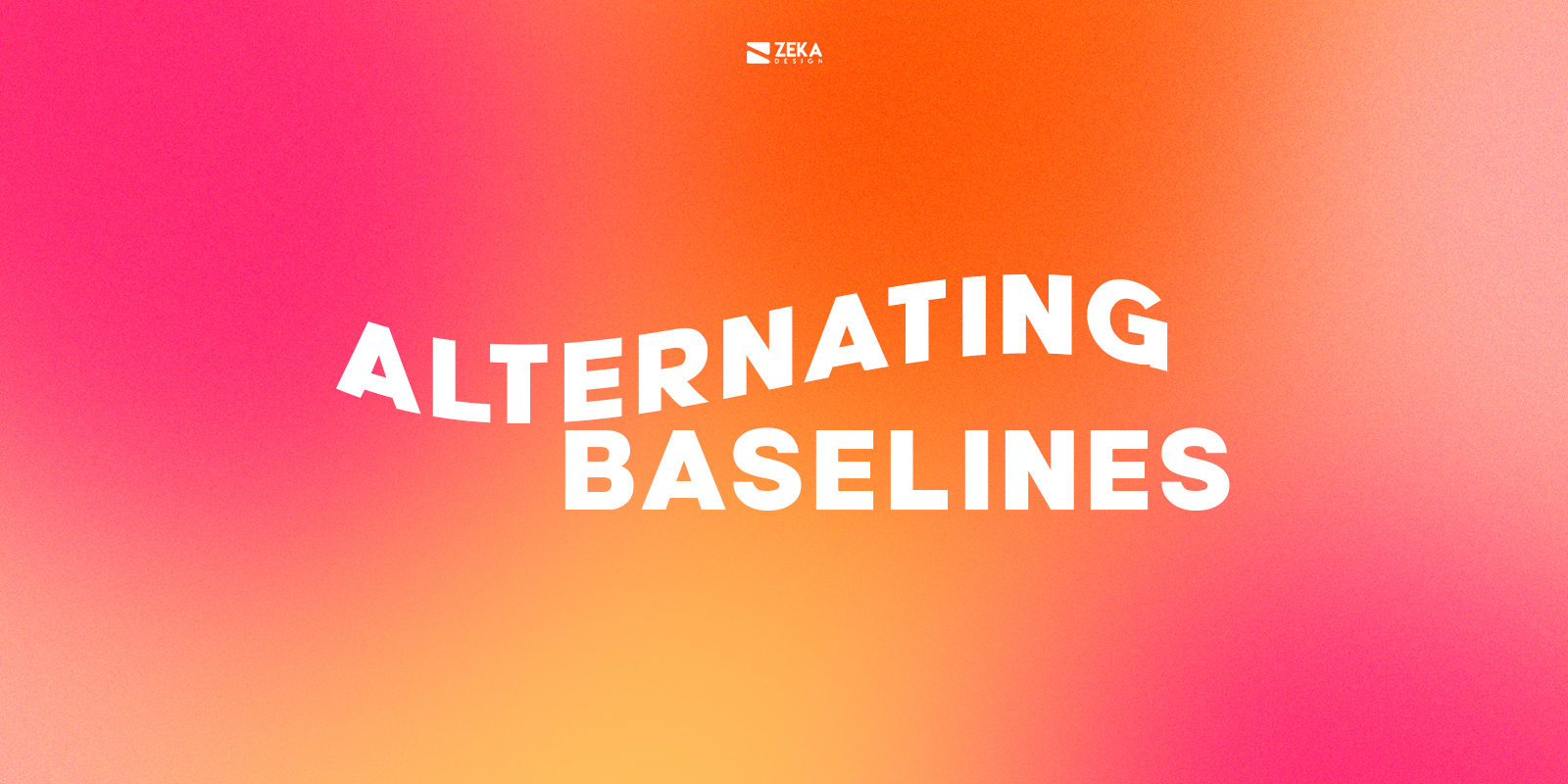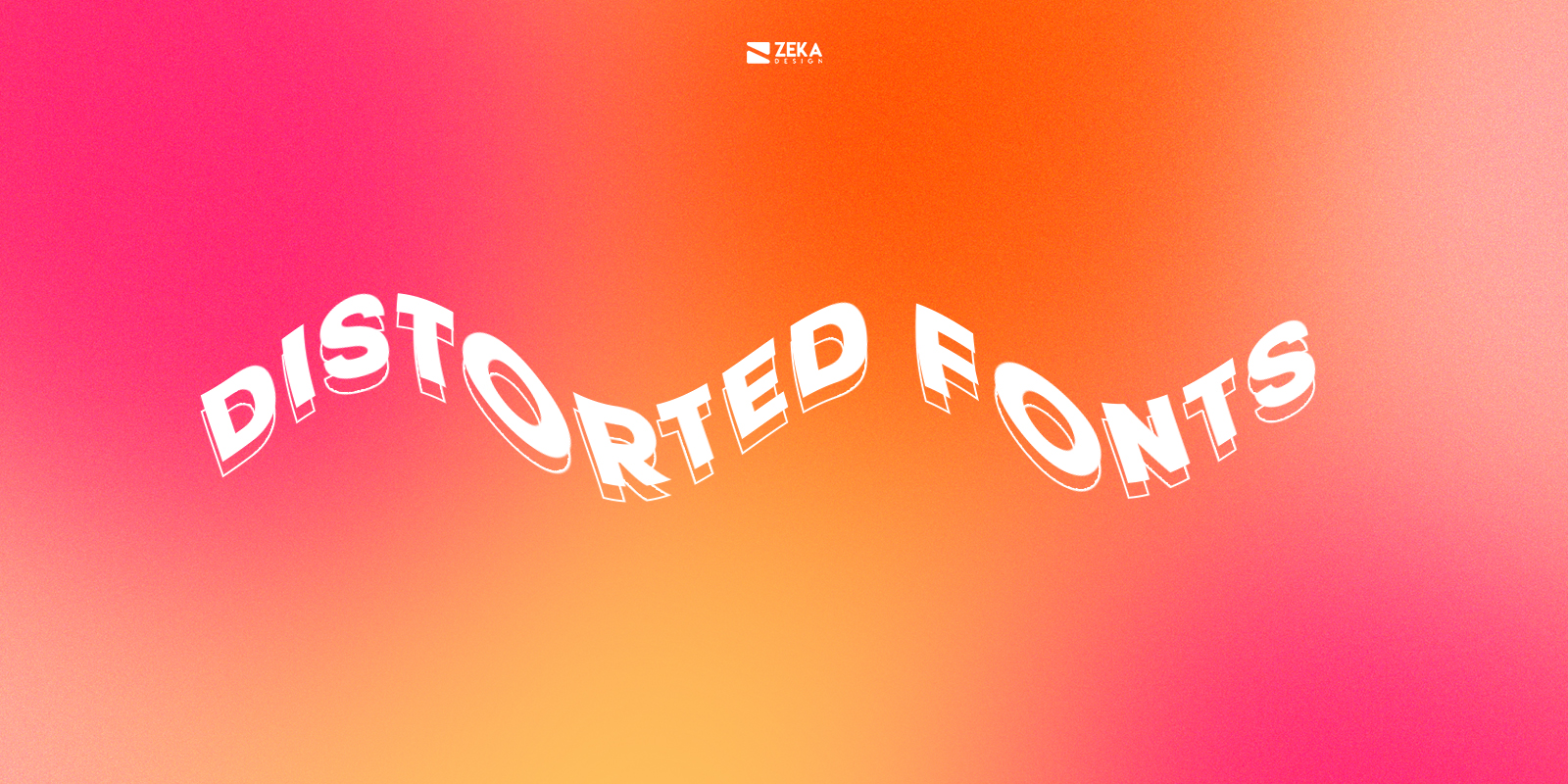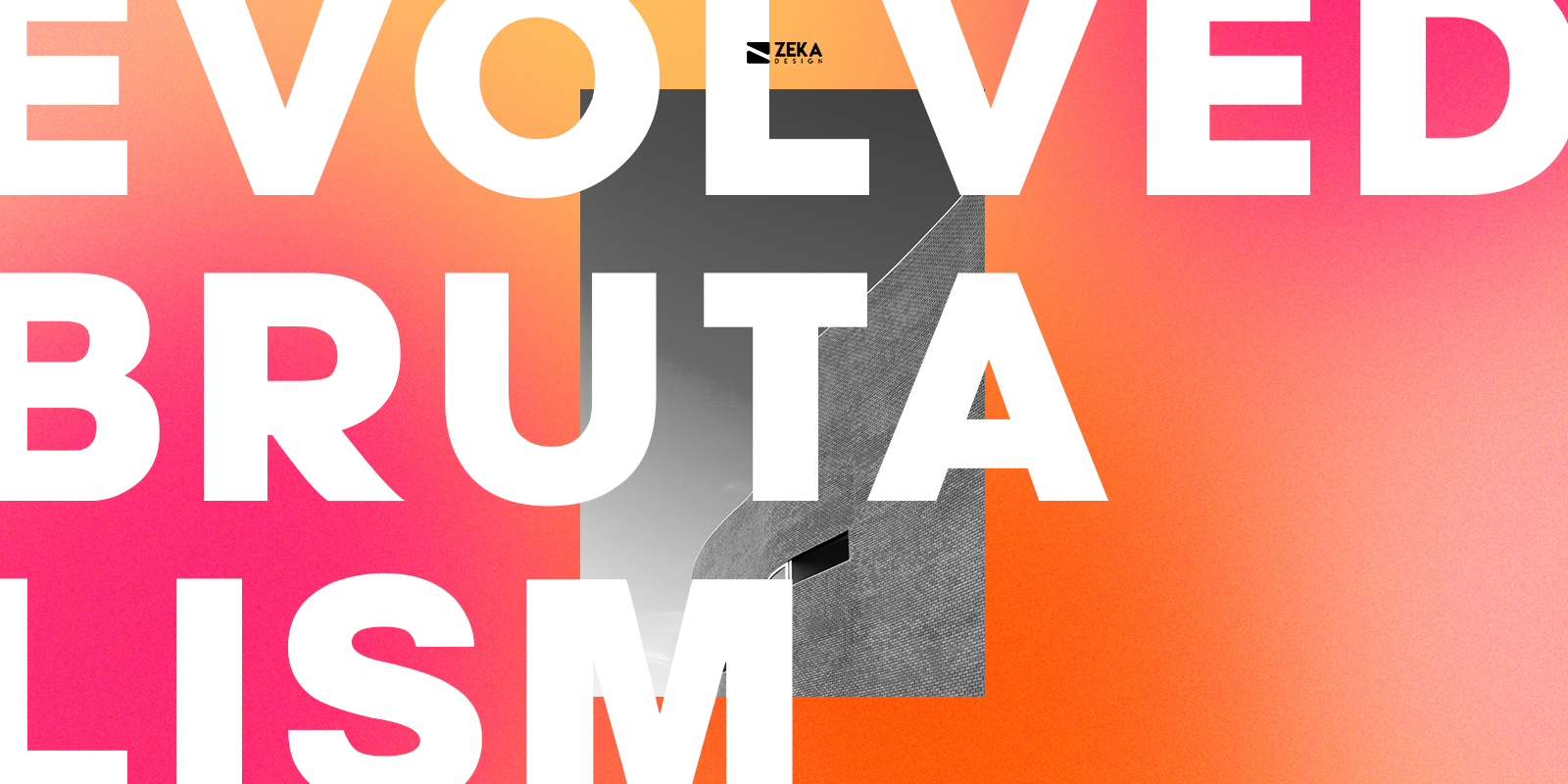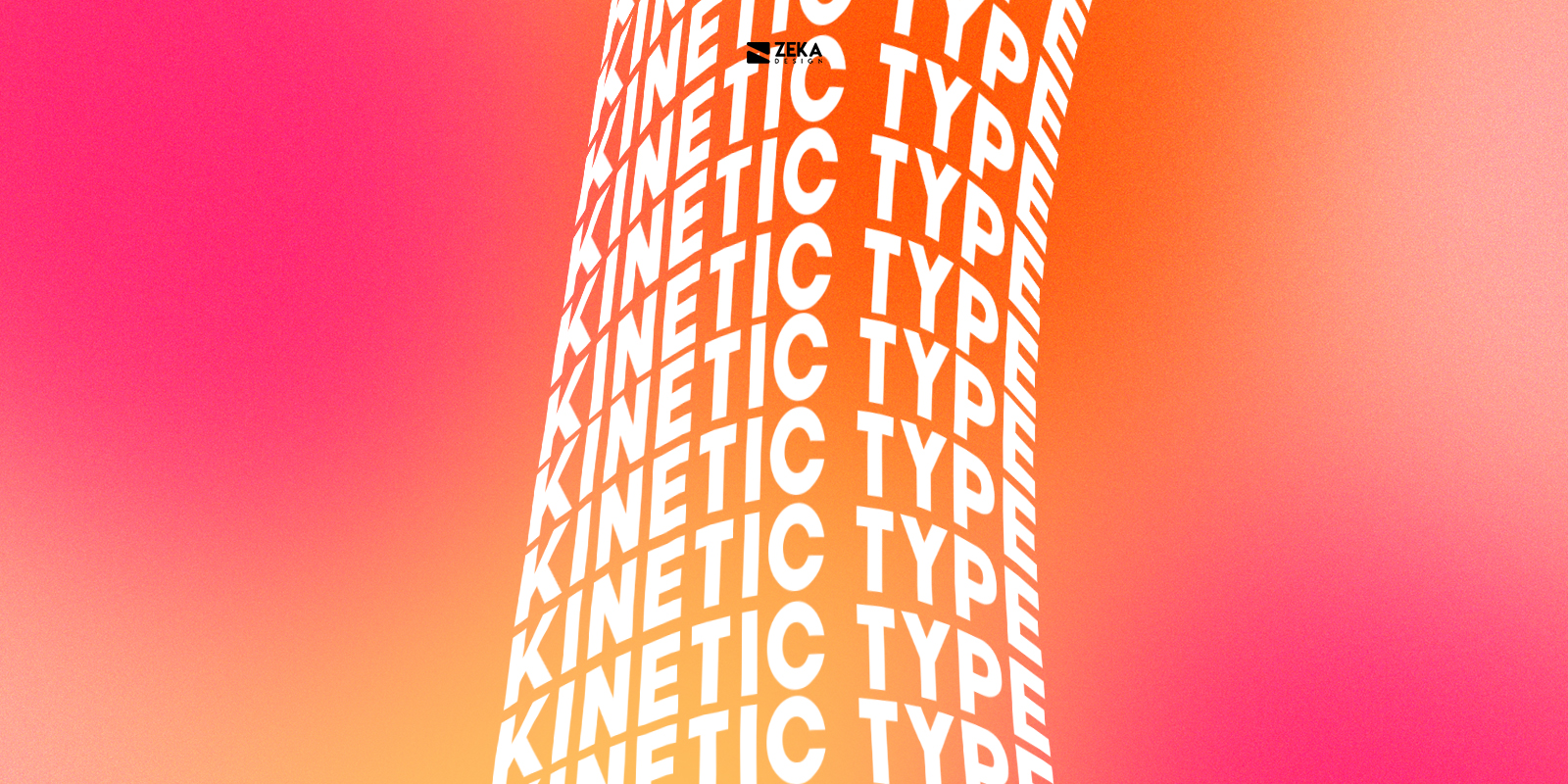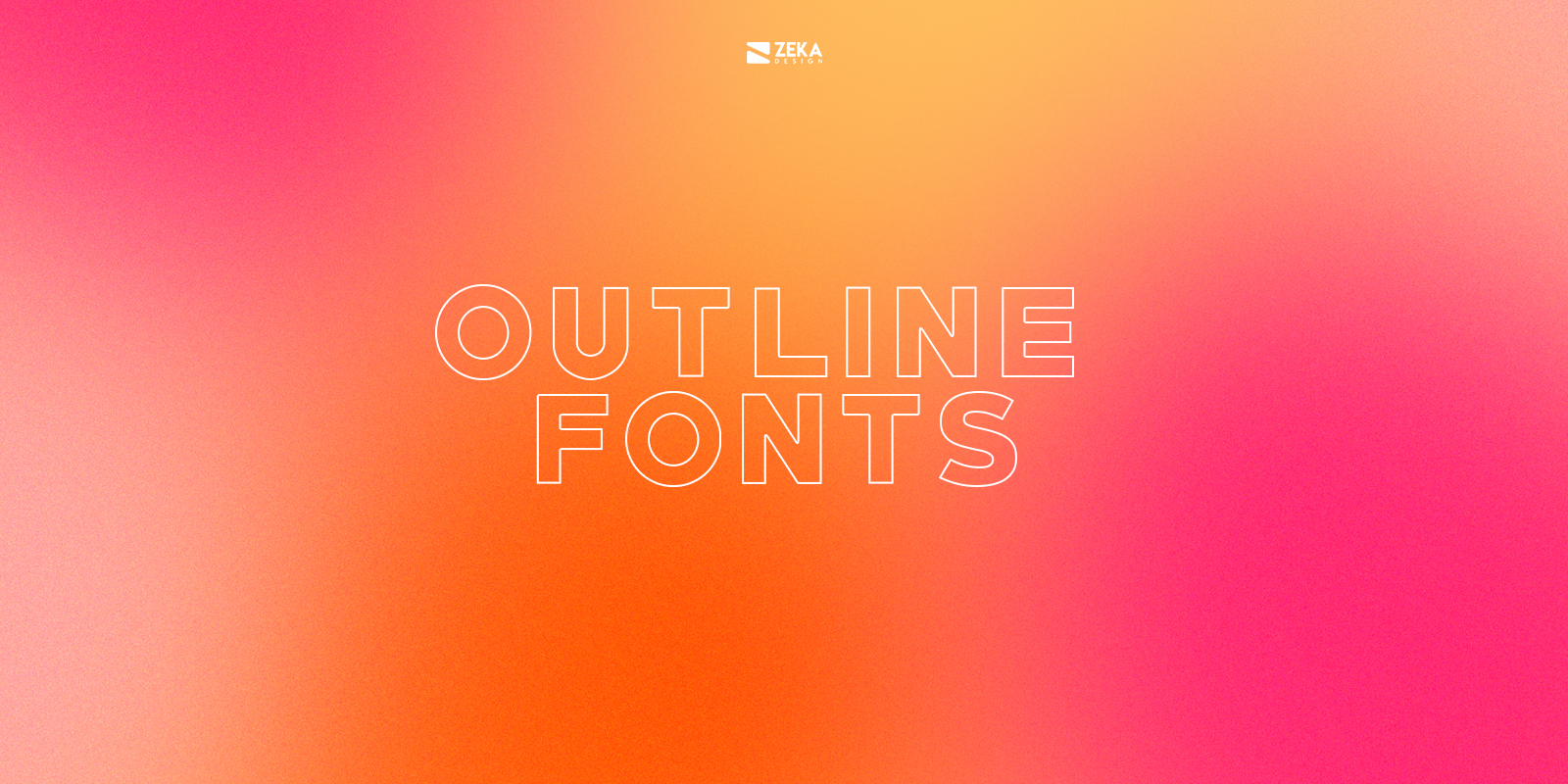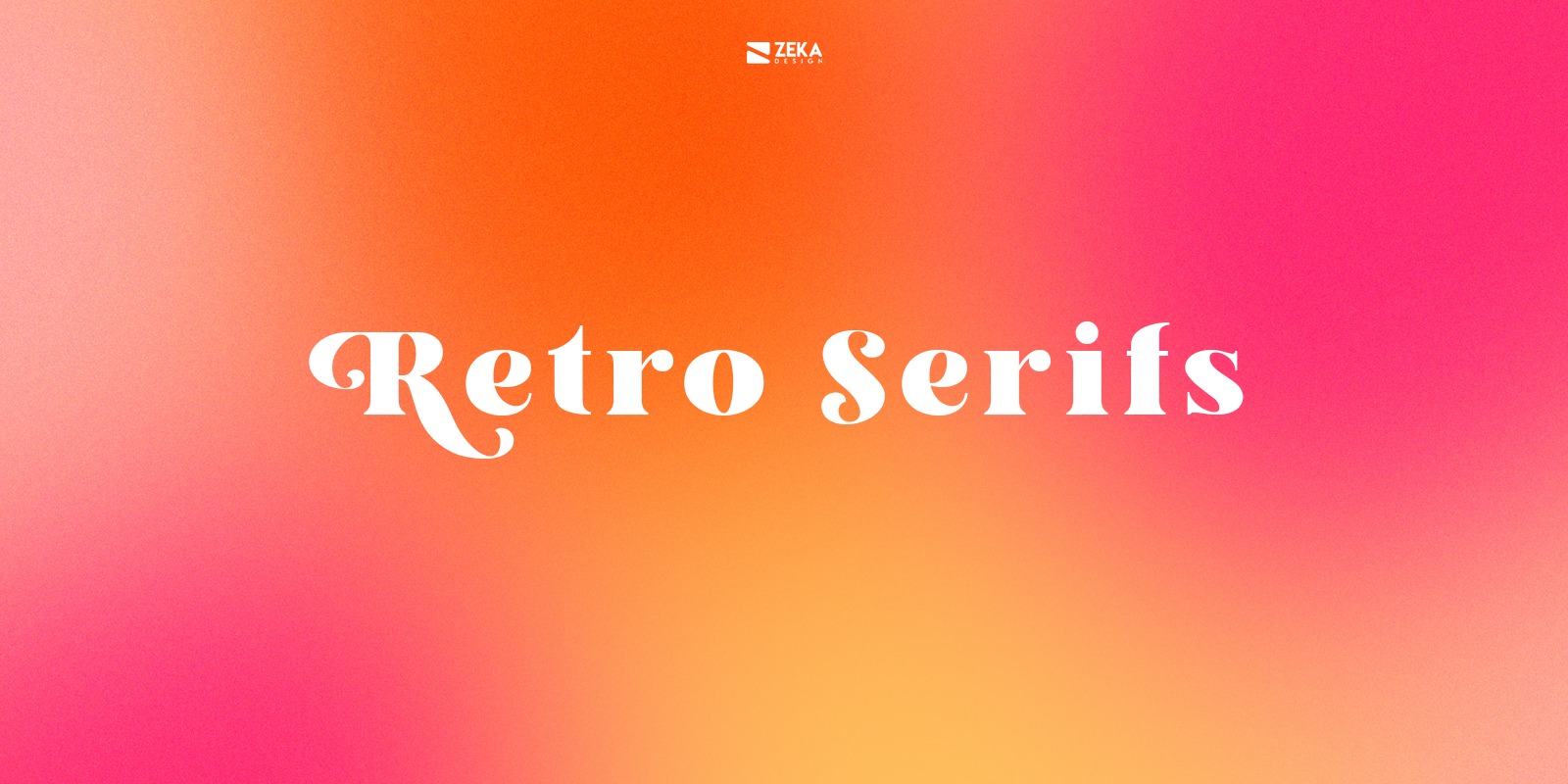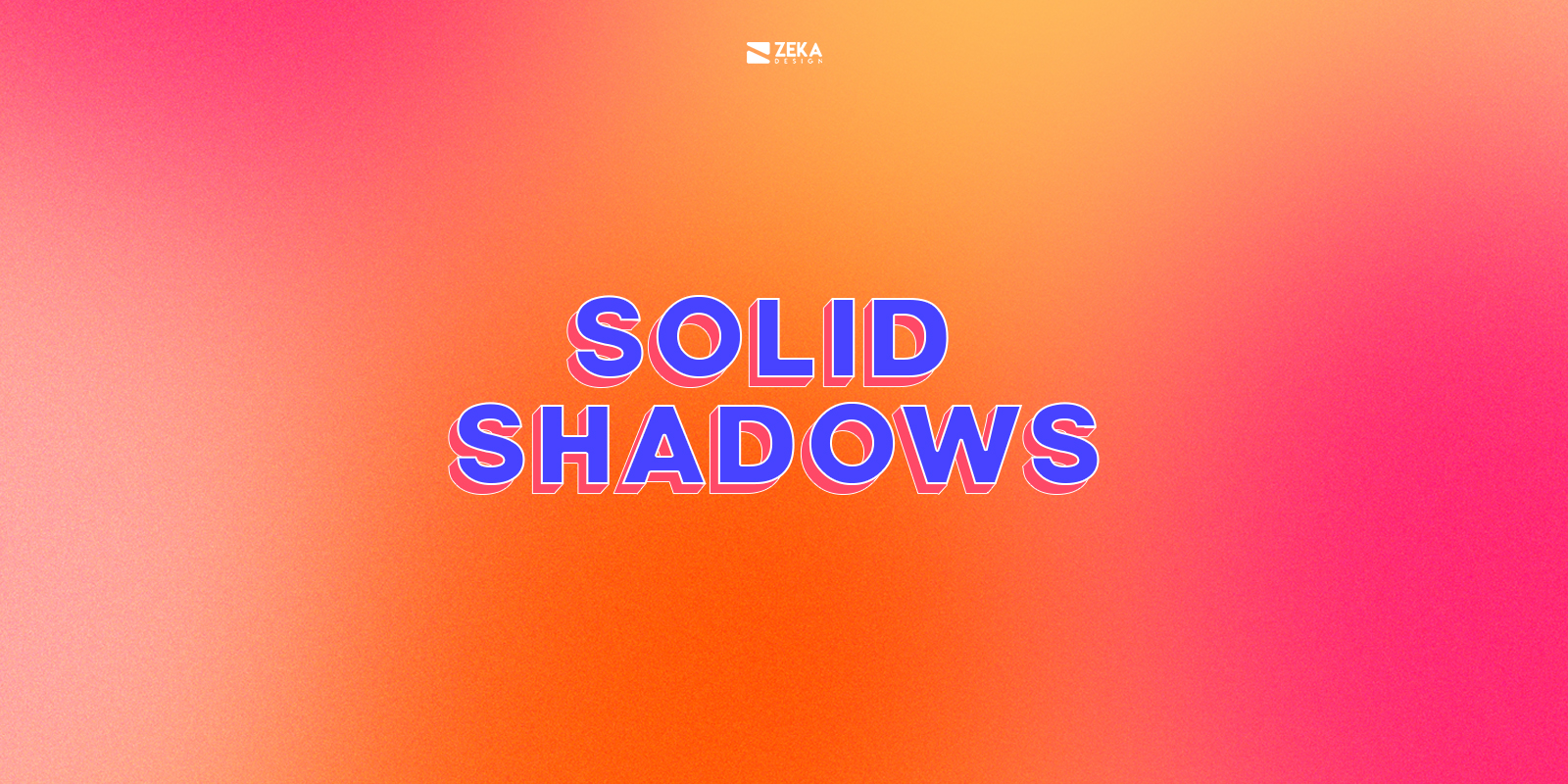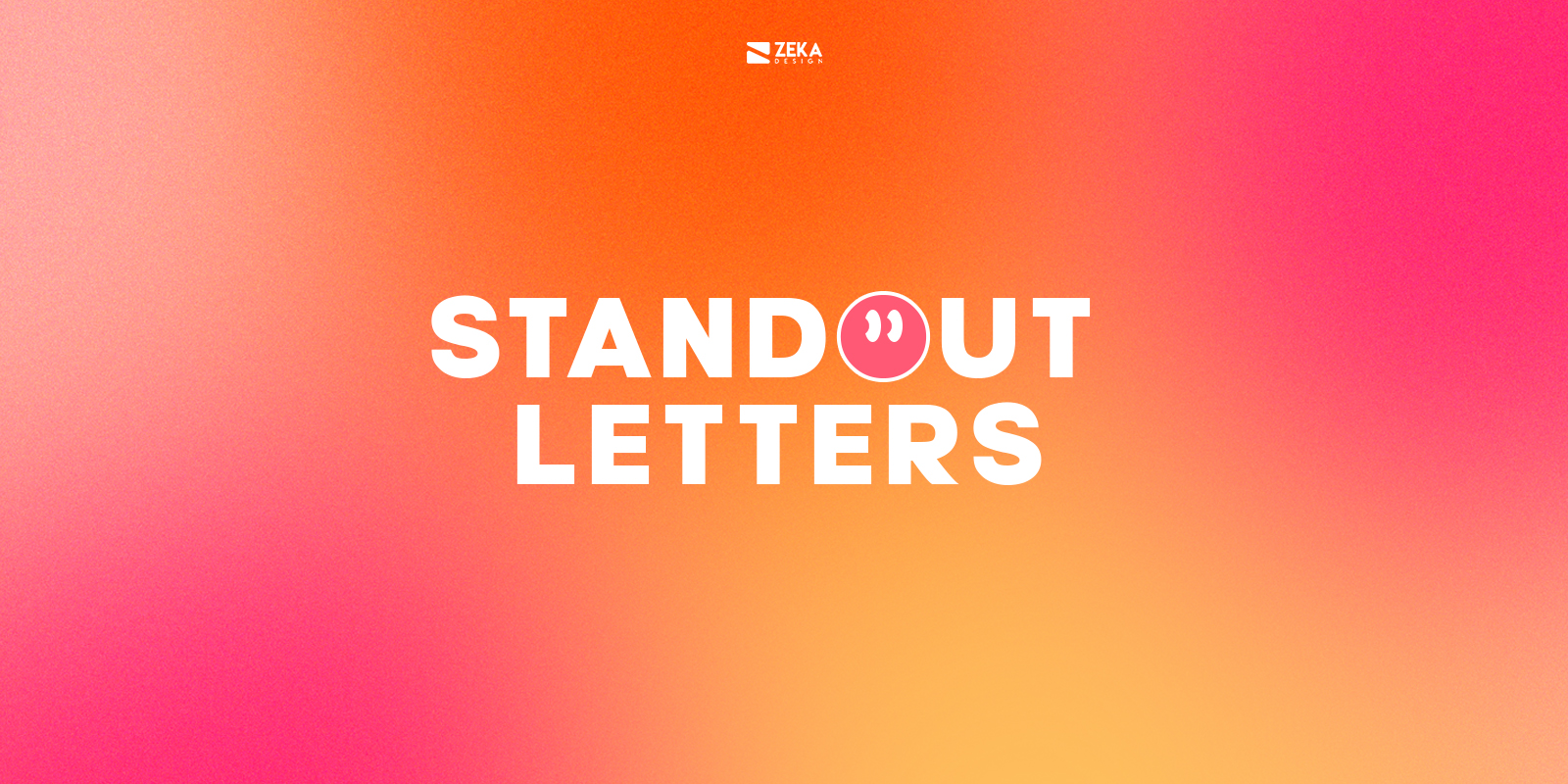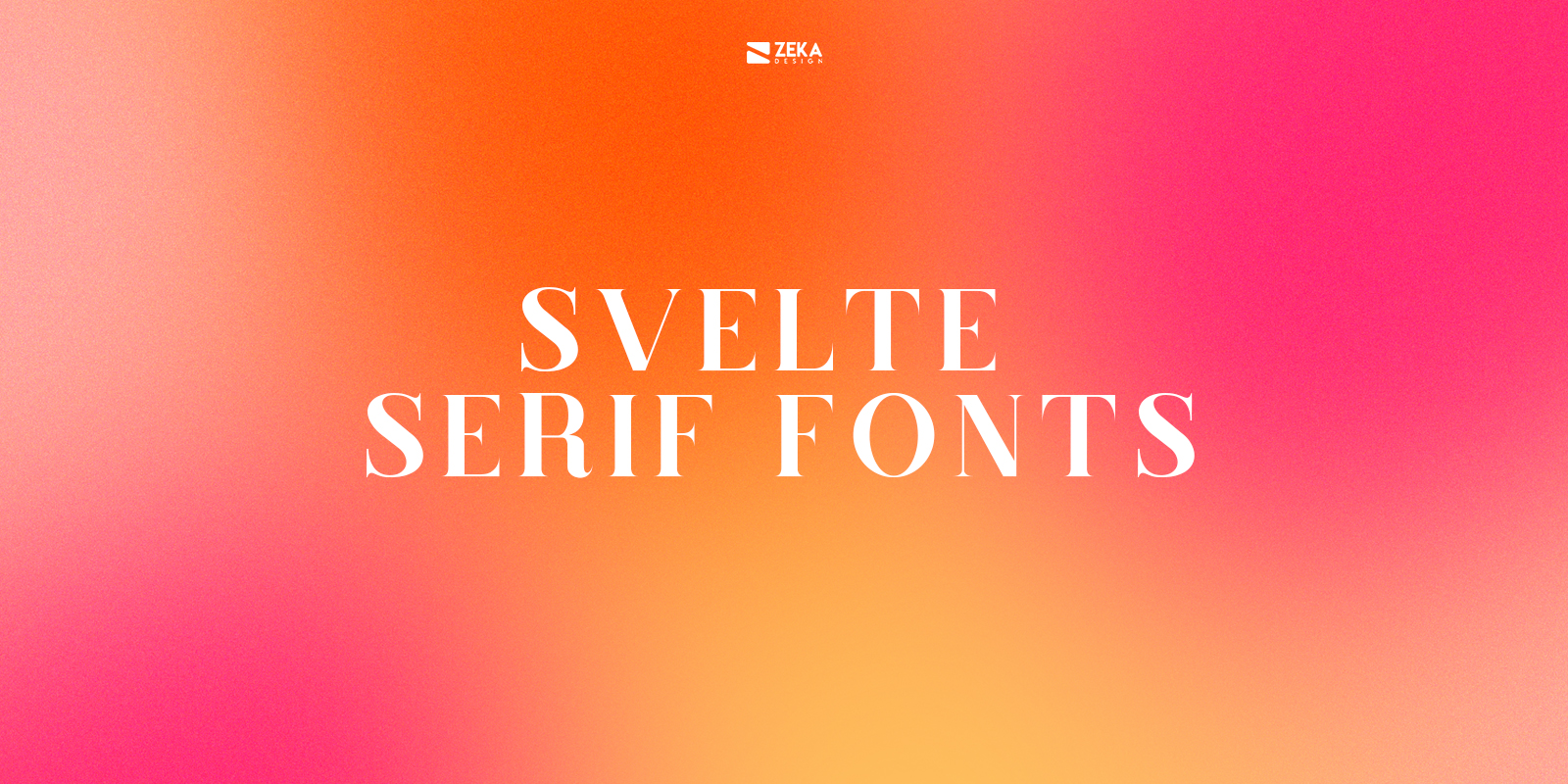
Typography and fonts are a key element for graphic design and brand and identity design, as they can transmit feelings to the viewer at the same time that gives your text a tone which the viewer read it. 2021 will be a year where we will see some trends making a comeback and new ones appearing.
Graphic designers know the importance of a good choice of font style and how typography can affect your design, and this year typography designers will be more experimental and creative in the font choice for websites, poster design, and branding elements, so if you want to take some typographic inspiration for this year let’s see the TOP 10 design trends for typography in 2021.
As we saw in my post about graphic design trends for 2021, one of the biggest trend this year is typography chaos in graphic design, and that is why in 2021 we will see a lot of graphic designers use distorted fonts on their design projects, as it will be a huge design trend for 2021.
When talking about distorted fonts, there aren’t any rules, as you can stretch, twist, contour, or squash typography without any limit and be experimental with typography, this trend will have a huge relation with brutalist design style and for brands that want to be associated with alternative and independent feelings distorted fonts are a great option.
During the last year, we have seen retro serifs making a comeback, usually influenced by 1970s styles used in poster design and TV titling, the use of retro serifs will be a huge trend during 2021 and we will see many brands using this type of fonts for their brand and identity design.
This retro serif as the name suggests will have a lot of influence on retro design styles and they will be bold and have curvy contours creating a minimalistic style that will be used for a typographic logo design for brands that want to be associated with warm feelings and new age.
2021 will be a year of experimentation for graphic designers and with this typographic trend, we will see designers get creative with cap letters going outside the box and create more visually interesting design ideas by modifying the intensity or thickness of the letters to create more interesting typography design.
This trend will be significant for titles and brand logo design based on typography as usually cap letters tended to grab the viewer attention but form a boxy shape, in 2021 this will change as typographic designers will use cap letters but they will alternate the baselines of them to create creative typographic ideas maintaining the emphasis on it.
Kinetic typography is a graphic design resource used for many years and one memorable moment of it was when iconic graphic designer Saul Used used this technique for Alfred Hitchcock movies Vertigo and North by Northwest to animate the title sequence for cinema.
But nowadays graphic designers are experimenting with kinetic typography to reduce the bounce rate on websites and to animate video content, and it’s not a surprise that 2021 kinetic type will be a huge trend in typography and font design, as designers will get more creative with this technique to create strong narratives for brands and products.
As we saw early on this post, serif fonts are back in trend, and we will see retro-inspired serif fonts, but we also will see a comeback of svelte serif fonts as they will be a huge typographic trend in 2021, and it’s not a surprise as I mention on my post about font psychology this type of fonts are usually associated with elegance.
These classical serif fonts will have slim and bold elements on them creating an elegant typography composition, this trend will be used in logo design for lettermarks for brands that want to give an elegant feeling at the same time that you will see svelte serif fonts used for web design and other graphic design projects usually mixed with minimalist and modern design style to create a clean and elegant design layout.
We have seen the outline font trend already been used during 2020, but in 2021 outline fonts will be a big thing on typography design as they give you a lot of room to play and experiment creating powerful design composition using transparency and merging the font with other elements of your design layout.
We will see the outline fonts trend usually used in bold San Serif or Serif bold fonts to create a powerful feeling, this trend also will be used mixed with fonts without transparency to create contrast with a modern style to focus the viewer attention to some key part of the text.
During the past year we have seen many brands and graphic designers using the brutalist style on their brand identity and poster design projects, and during 2021 brutalism will be a huge trend in typography design, but this design style will evolve into a softer version more visually harmonious.
This design trend will be really important for brands that wants to give disruptive feeling with new ideas that want to change the perception of their sector differentiating from their competitors, and you will see this typographic trend usually used in web design and poster designer.